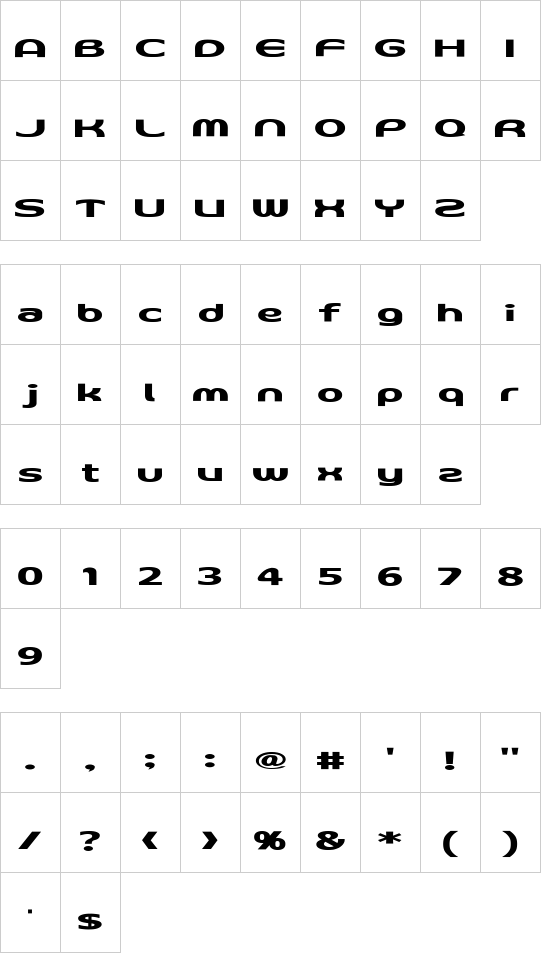
D3 Archism
D3 Archism is a structured sans-serif with architectural, geometric letterforms and a precise, engineered feel. The shapes are built from clean lines and exact angles, suggesting blueprints and technical drawing, which gives the type a disciplined, constructed character.